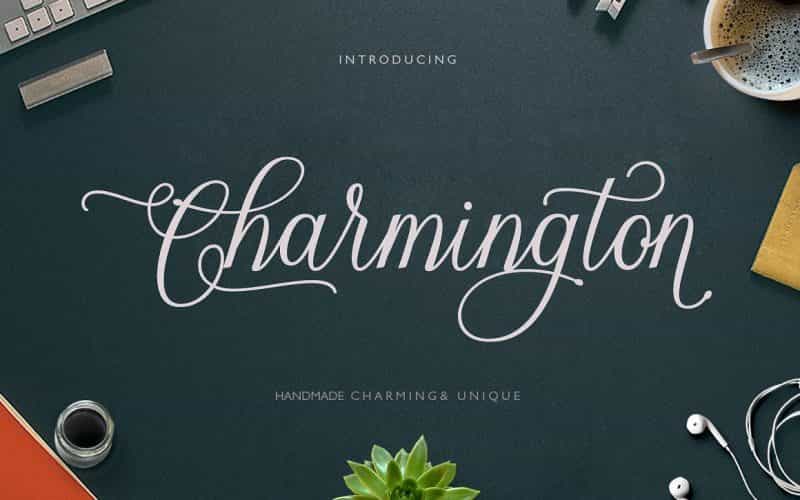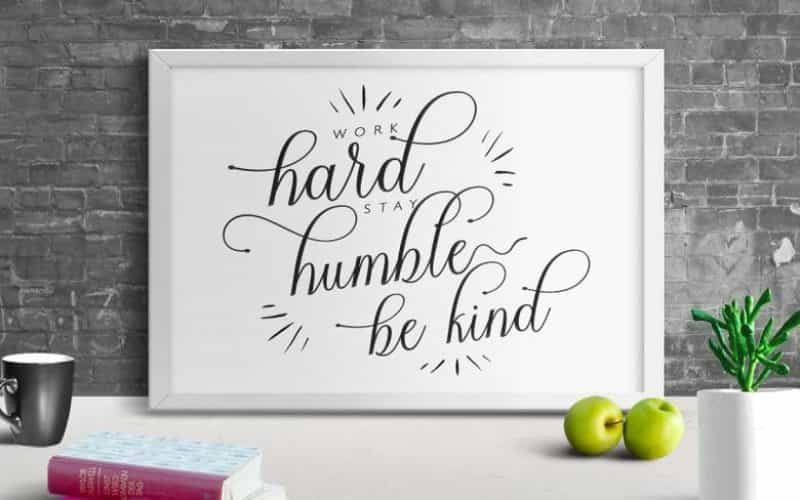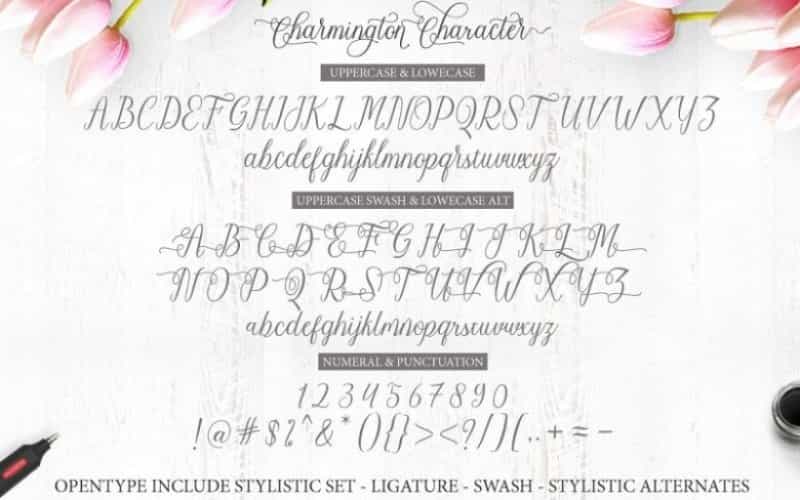
Introducing the latest Charmington Script style with modern style, This font is casual and pretty with a scratch. Can be used for various purposes. such as the title, correspondence, wedding invitaions, letterhead, signage, labels, newsletters, posters, badges, t-shirt, etc.